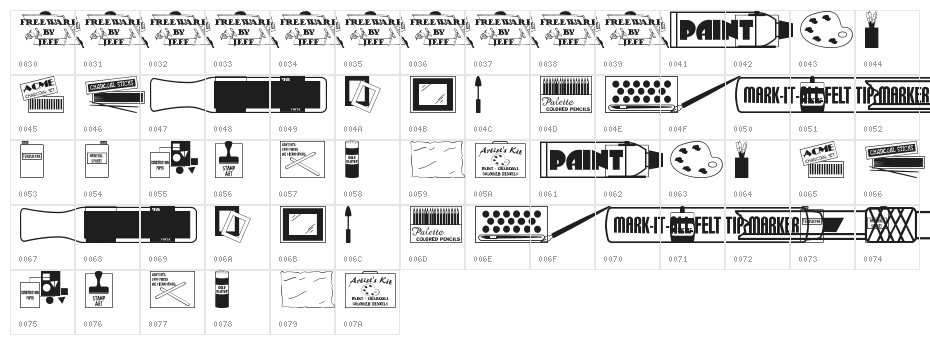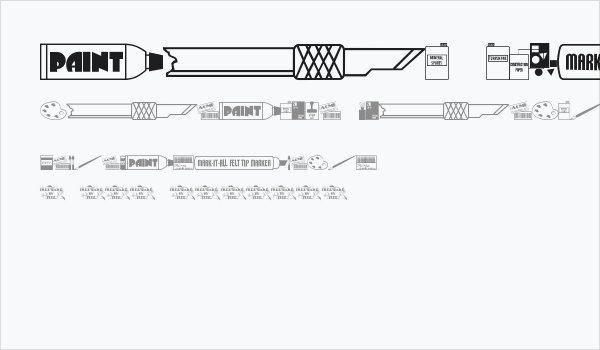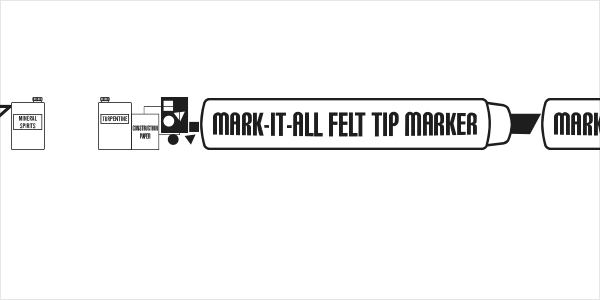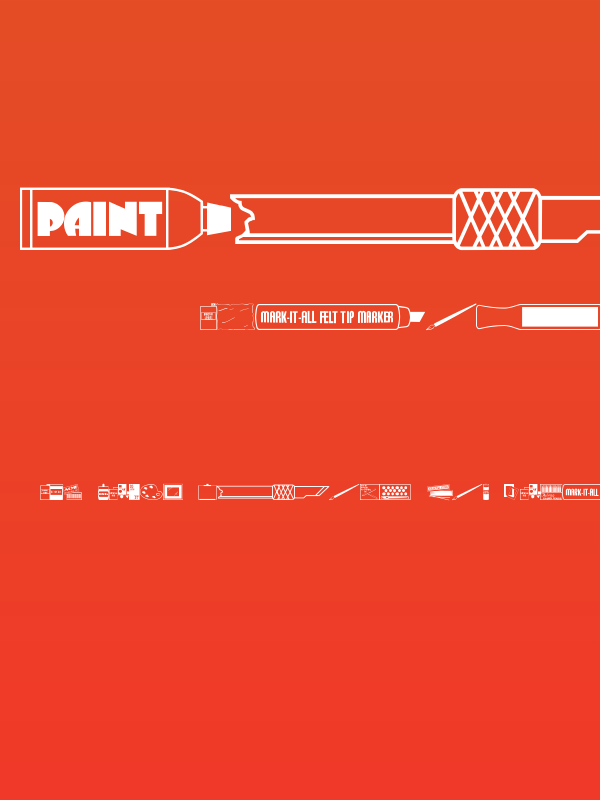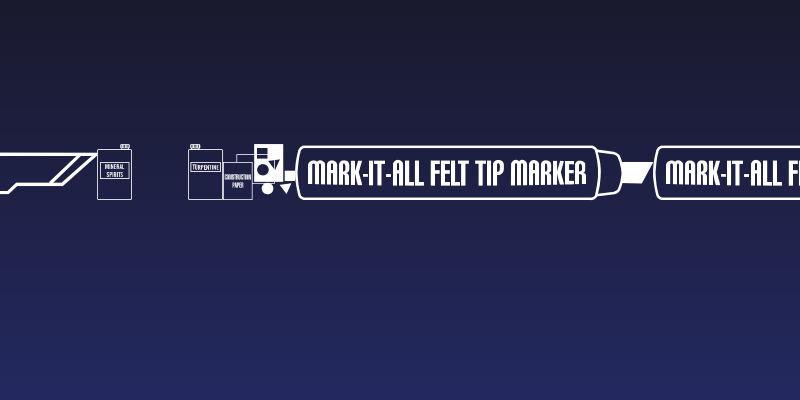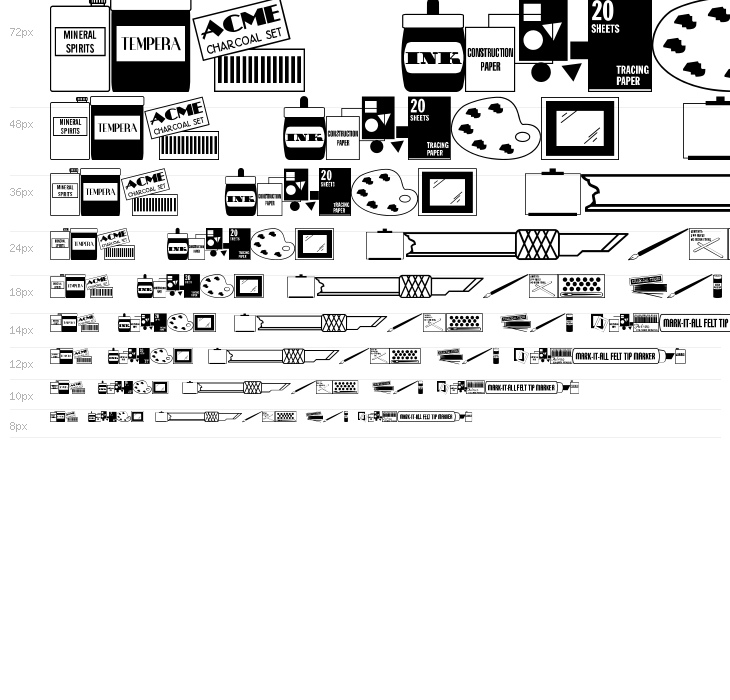
Art Supplies JL Font
Art Supplies JL Description
This design is a creative and playful representation of various art supplies, arranged in a linear fashion. Each item, from paint tubes to markers and brushes, is depicted with intricate detail, showcasing a whimsical and artistic style. The elements are connected in a way that mimics a continuous line of art tools, making it visually engaging. The design is not a traditional font but rather a decorative illustration that could be used in artistic projects or as a thematic border in creative works.
Use CaseDecorative borders, artistic projects, educational materials.
Proposed ProjectsIdeal for use in artistic projects, educational materials about art, or as a decorative border in creative designs.